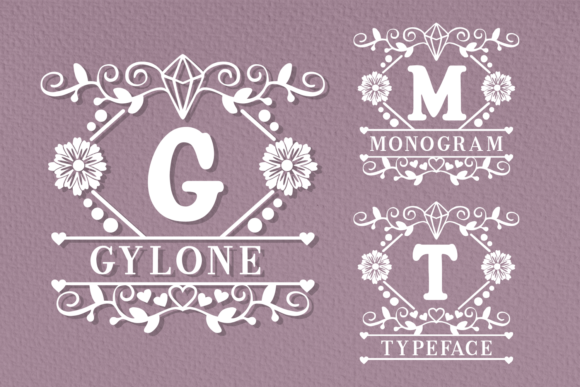
Gylone Font: Elevate Your Designs with Elegance and Class
In the world of typography, fonts play a crucial role in conveying the tone and personality of a design. For designers and crafters seeking to add a touch of sophistication and luxury to their projects, Gylone Font is an excellent choice. This decorative font is designed to bring elegance and class to various design applications, making it a versatile and valuable addition to any creative arsenal.
What is Gylone Font?
Gylone Font is a distinct and versatile decorative font that can be used to elevate the visual appeal of any design project. Its unique style and characteristics make it an excellent choice for designers looking to add a touch of elegance and sophistication to their work. Whether you’re working on a branding project, packaging design, or digital content, Gylone Font is sure to make a lasting impression.
Key Features of Gylone Font
Gylone Font boasts several key features that make it an attractive choice for designers and crafters. Some of its notable features include:
- Elegant and Classy Design: Gylone Font is designed to add a touch of elegance and class to any design project. Its sophisticated style makes it perfect for luxury brands, high-end products, and premium services.
- Versatility: This font is highly versatile and can be used for various design applications, including branding, packaging, digital content, and more.
- Unique Style: Gylone Font has a unique style that sets it apart from other decorative fonts. Its distinctive characteristics make it an excellent choice for designers looking to create a lasting impression.
Uses of Gylone Font
Gylone Font can be used for a wide range of design projects, including:
- Branding and Logo Design: Use Gylone Font to create a luxurious and sophisticated brand identity that reflects your company’s values and personality.
- Packaging Design: Add a touch of elegance to your product packaging with Gylone Font. It’s perfect for high-end products, premium services, and luxury brands.
- Digital Content: Use Gylone Font to create engaging and visually appealing digital content, such as social media graphics, blog posts, and email newsletters.
- Stationery and Print Materials: Gylone Font is also suitable for creating elegant and sophisticated stationery and print materials, such as business cards, letterheads, and brochures.
Benefits of Using Gylone Font
Using Gylone Font in your design projects offers several benefits, including:
- Enhanced Visual Appeal: Gylone Font adds a touch of elegance and sophistication to any design project, making it more visually appealing and engaging.
- Increased Brand Credibility: By using a luxurious and sophisticated font like Gylone, you can create a positive impression of your brand and increase its credibility.
- Versatility: Gylone Font can be used for various design applications, making it a valuable addition to any creative arsenal.
Gylone Font is a distinct and versatile decorative font that can add elegance and class to any design project. Its unique style, versatility, and elegance make it an excellent choice for designers and crafters seeking to create sophisticated and luxurious designs. Whether you’re working on a branding project, packaging design, or digital content, Gylone Font is sure to make a lasting impression. So why wait? Download Gylone Font today and elevate your designs to the next level.